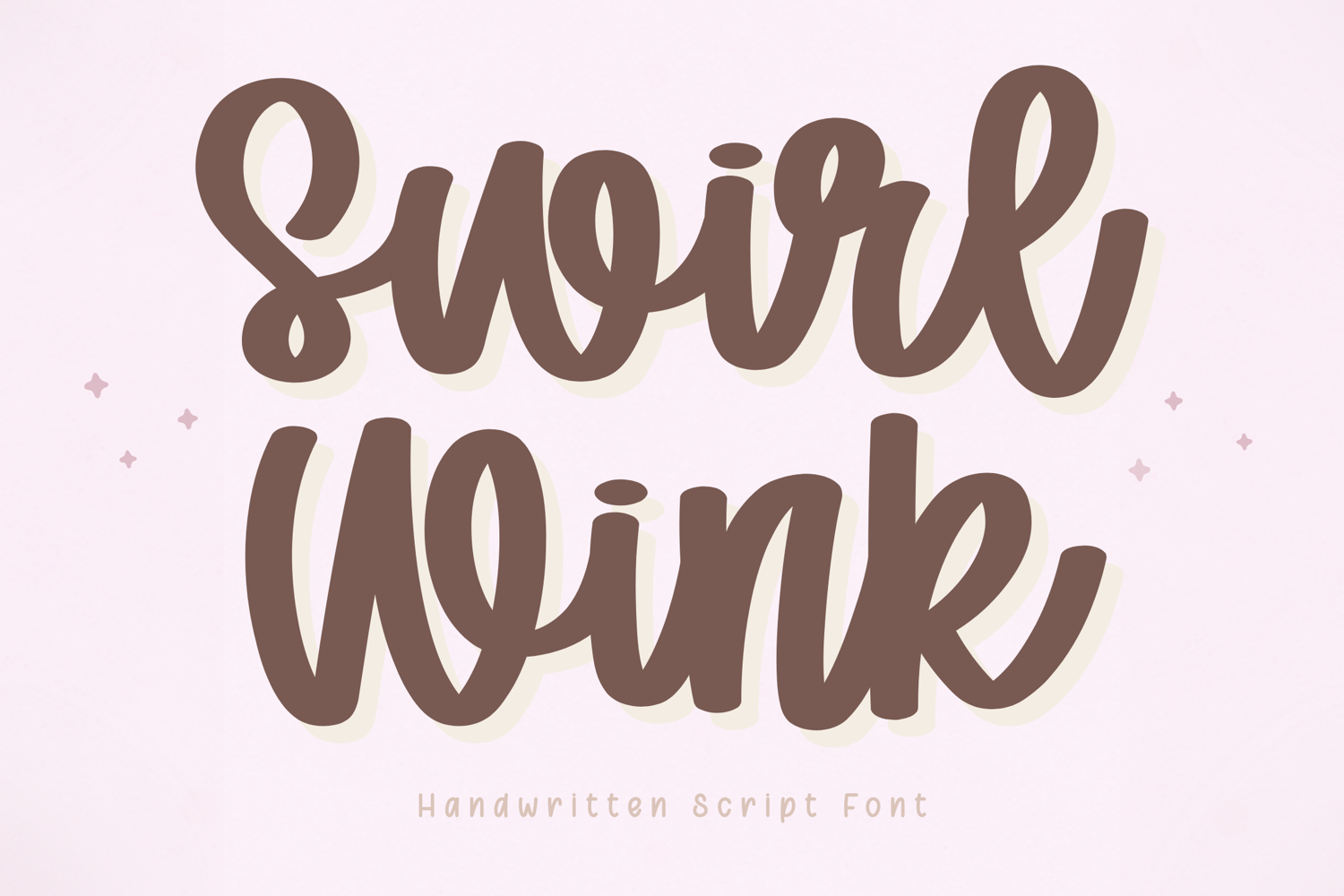
Swirl Wink - Handwritten Script Font
Swirl Wink is a clean and charming handwritten script font designed for modern creative use. With its smooth curves and balanced letterforms, this font offers a soft and friendly appearance while maintaining excellent readability.
This typeface is carefully crafted to perform well across a variety of applications, making it suitable for Cricut projects, digital planners, branding, and social media design. Its clean strokes and consistent structure ensure smooth results for both writing and cutting purposes.
Swirl Wink is designed to be smooth, clean, and easy to use, ensuring a pleasant experience for both beginners and professional designers.